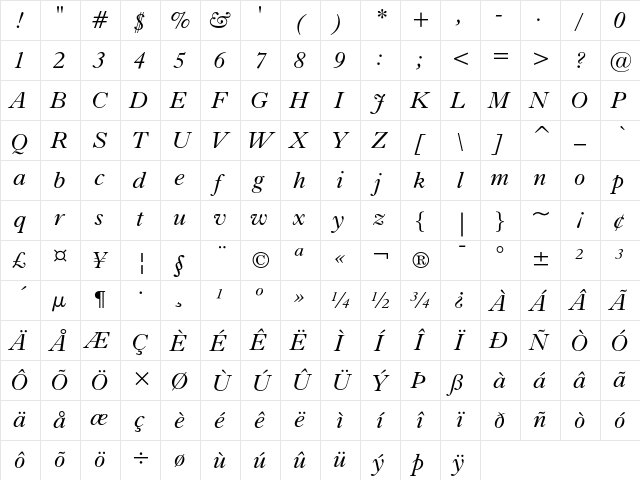
Dutch 766 is a composed and adaptable typeface that performs quietly and consistently across a wide range of design contexts. The slanted form adds forward momentum and visual energy.
Pro Tip: Use Dutch 766 for emphasis, pull quotes, and subheadings where its slanted energy can add rhythm to the layout.